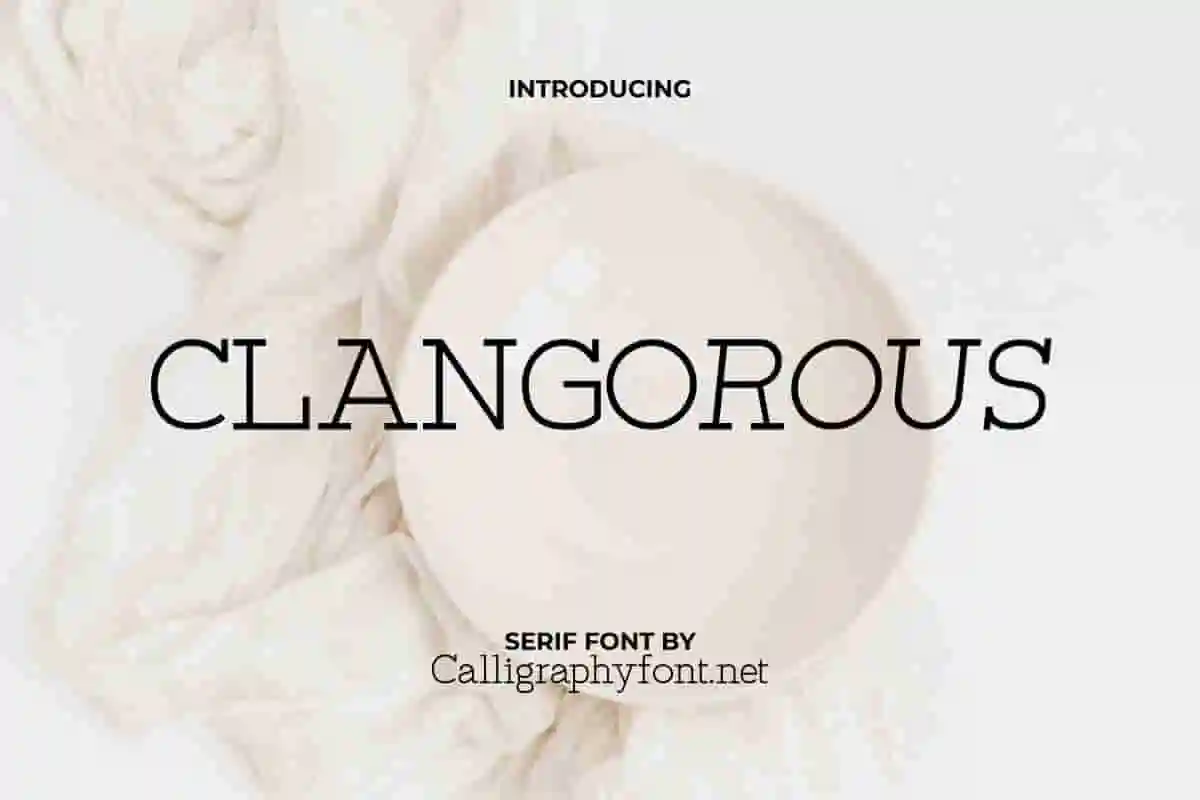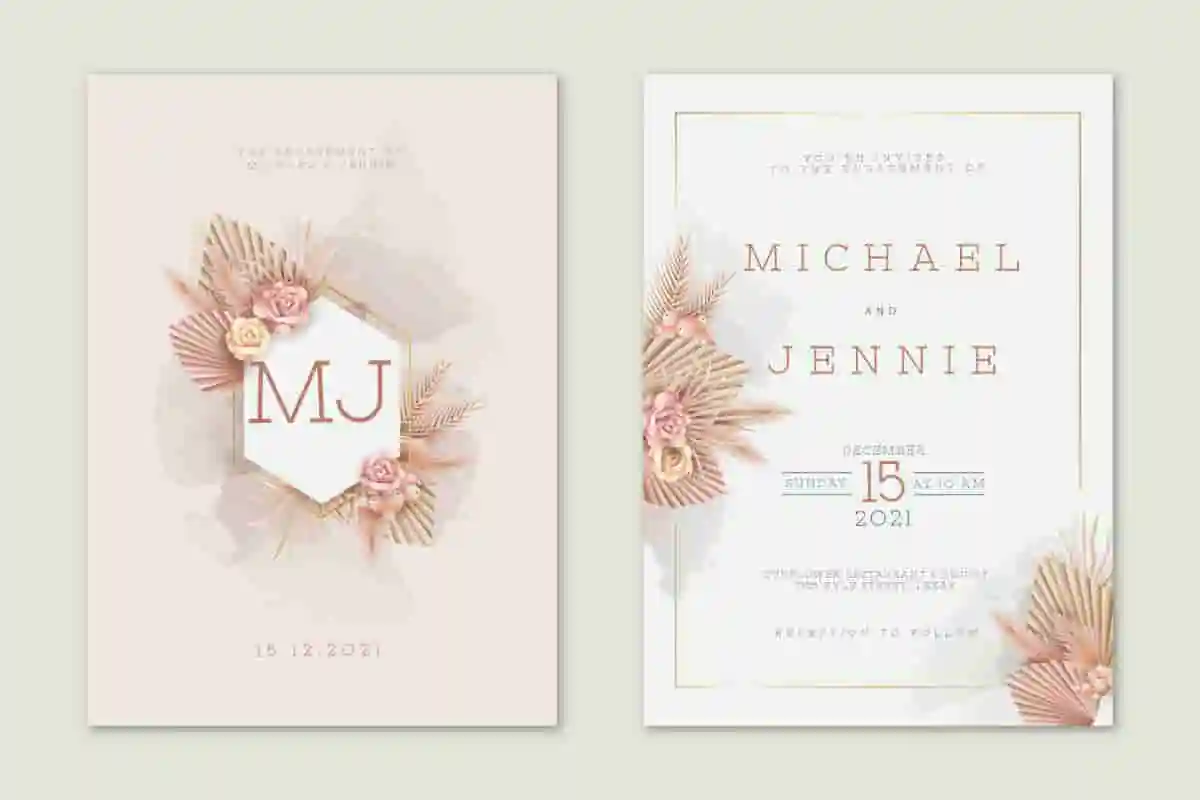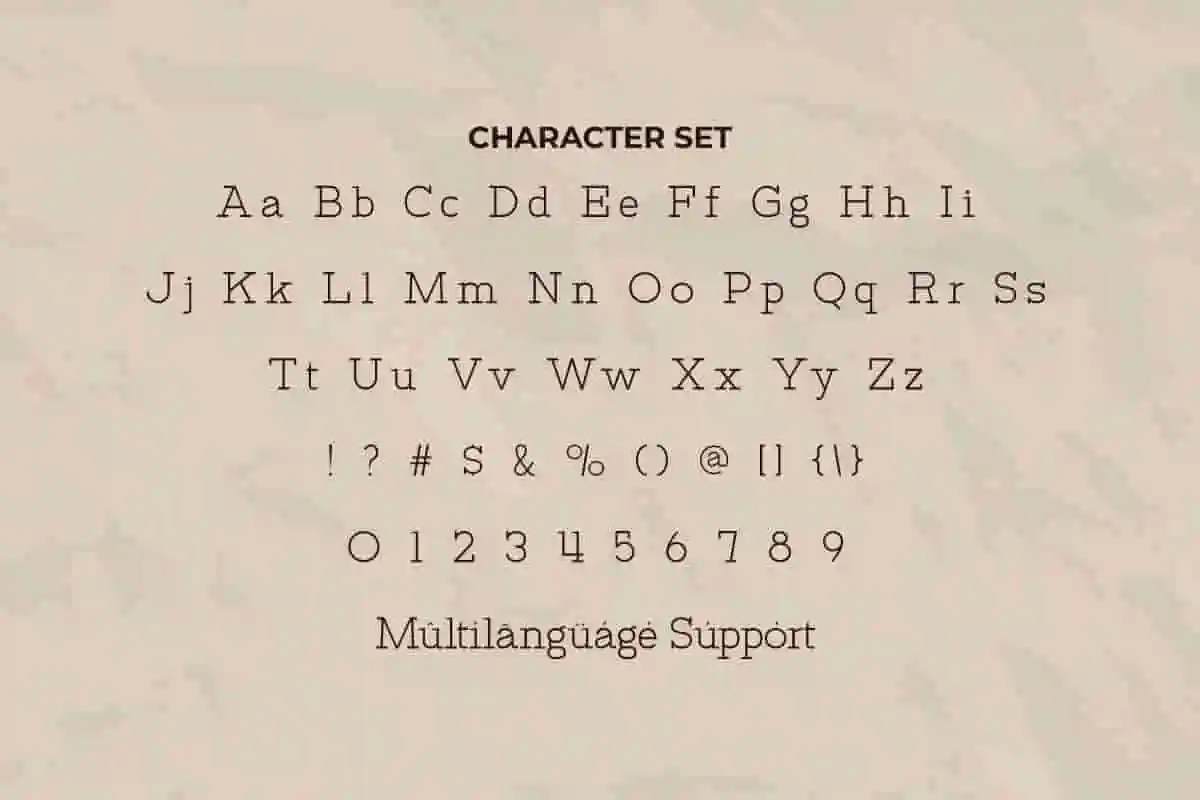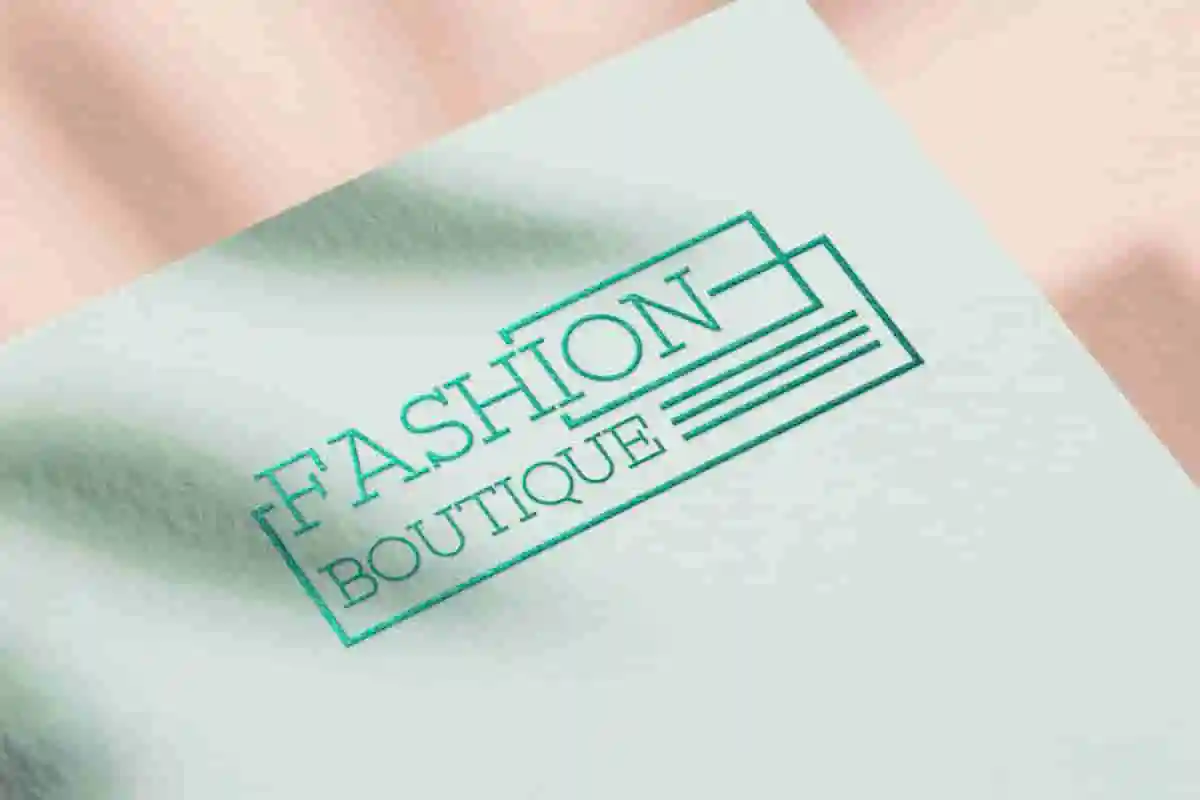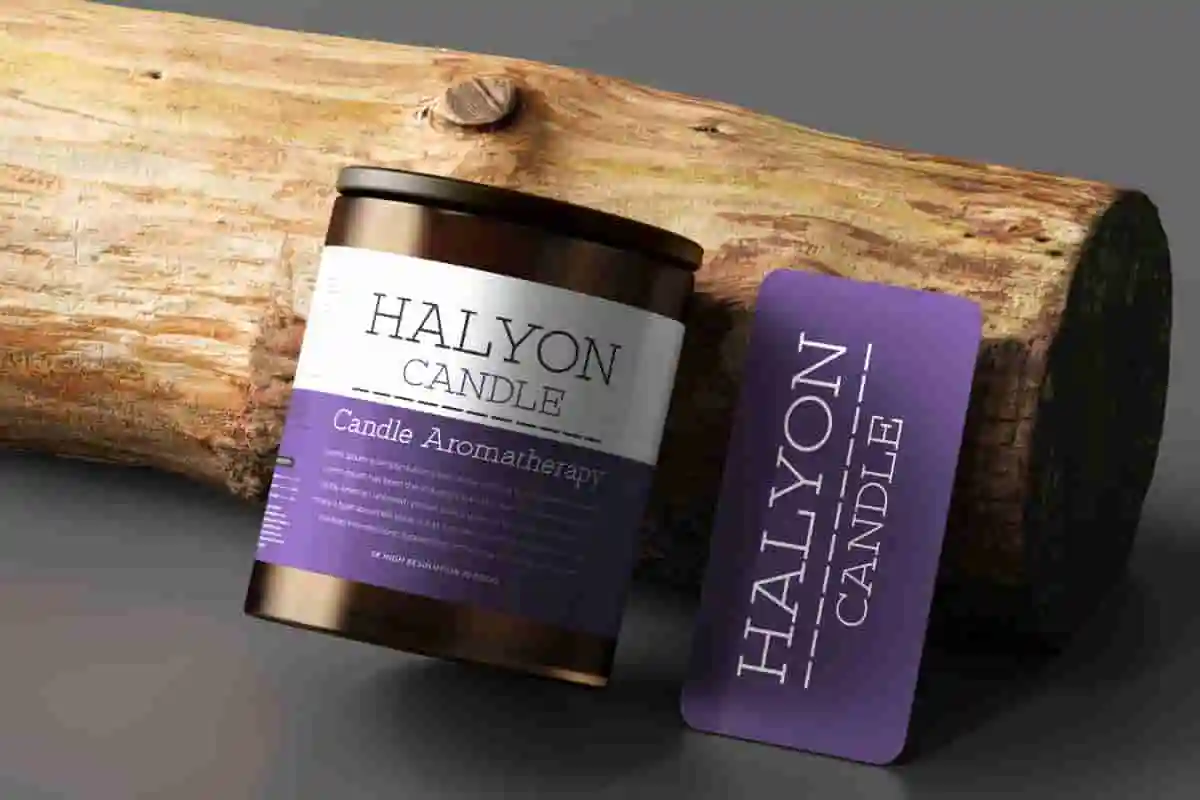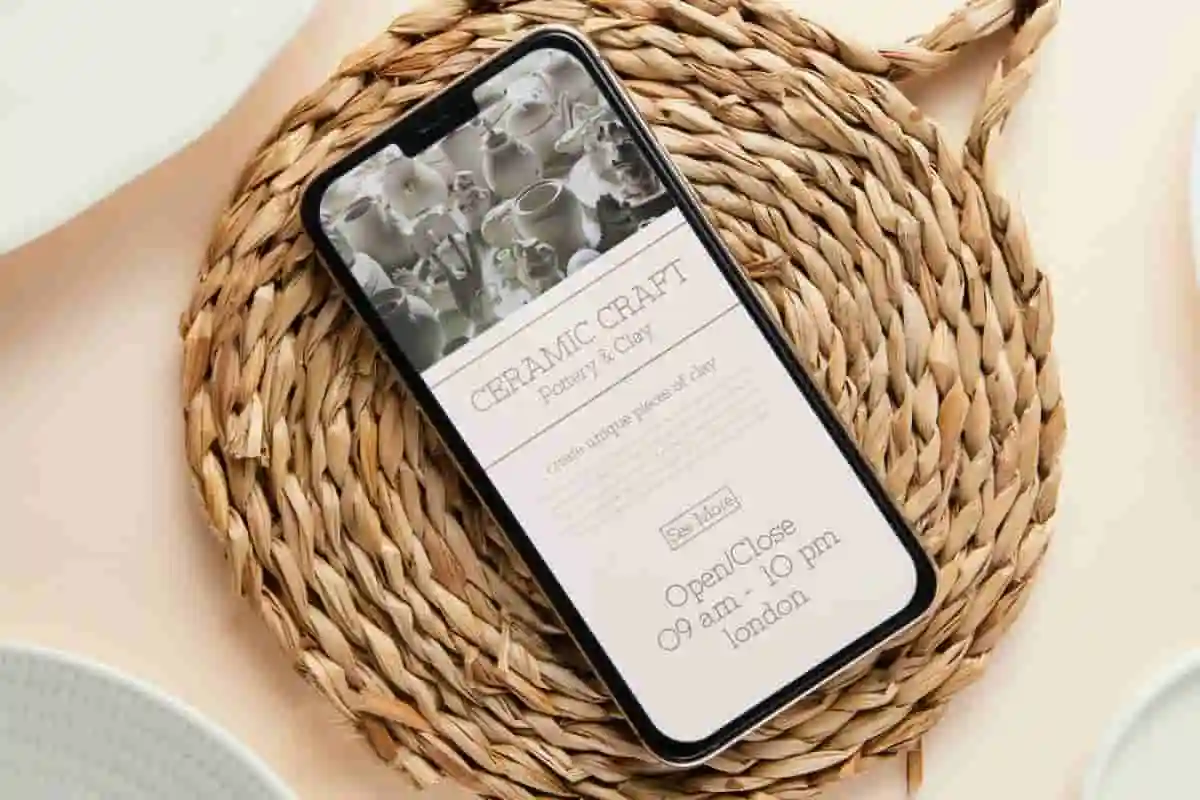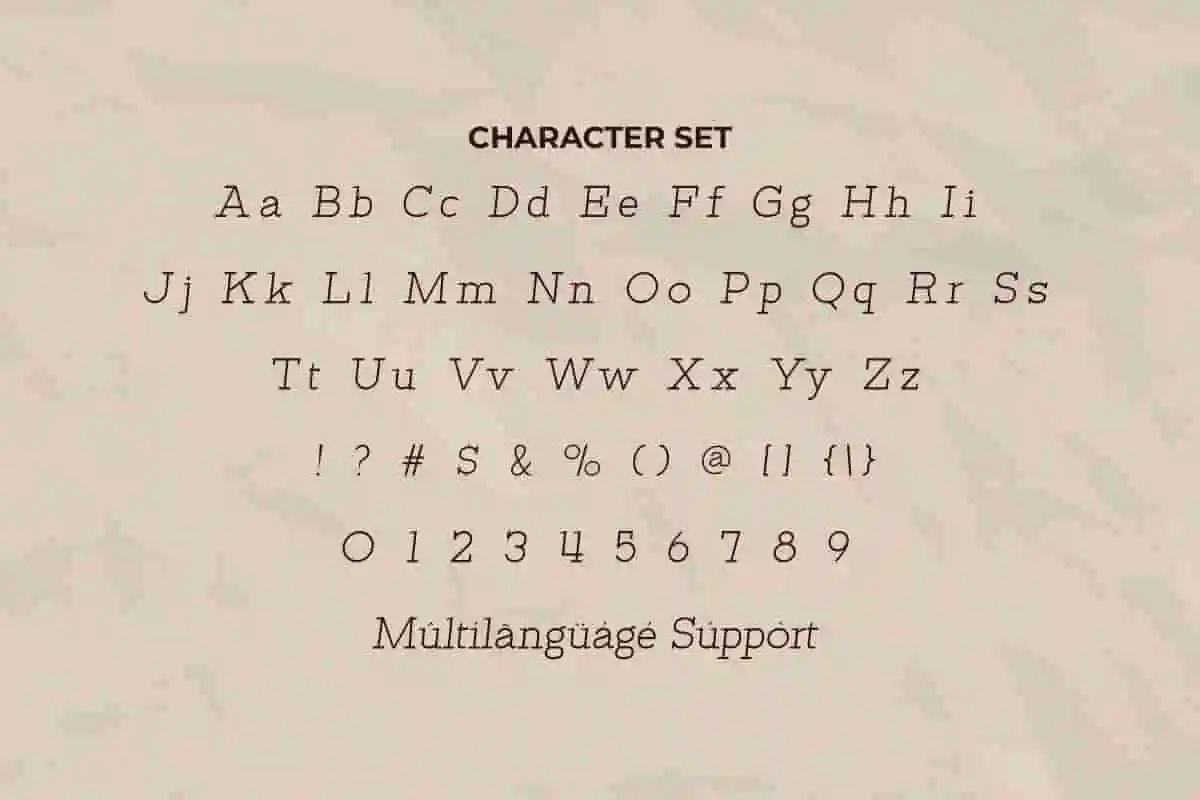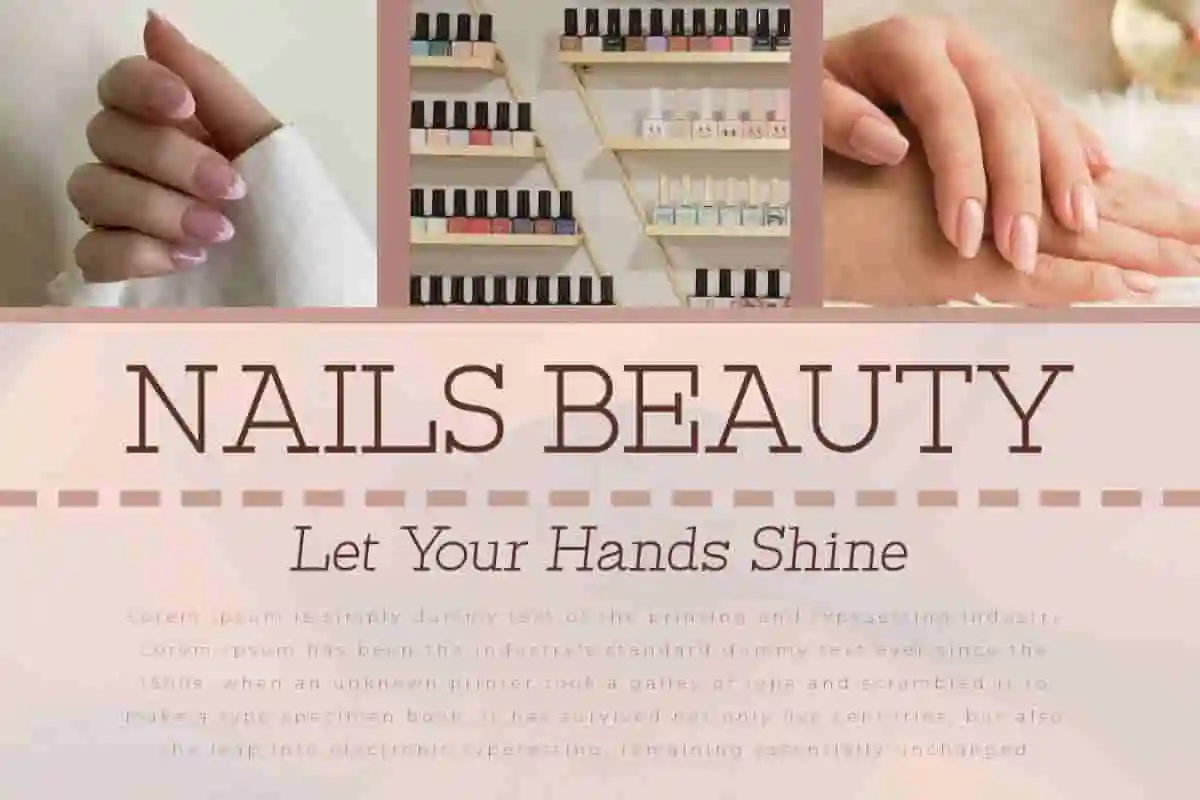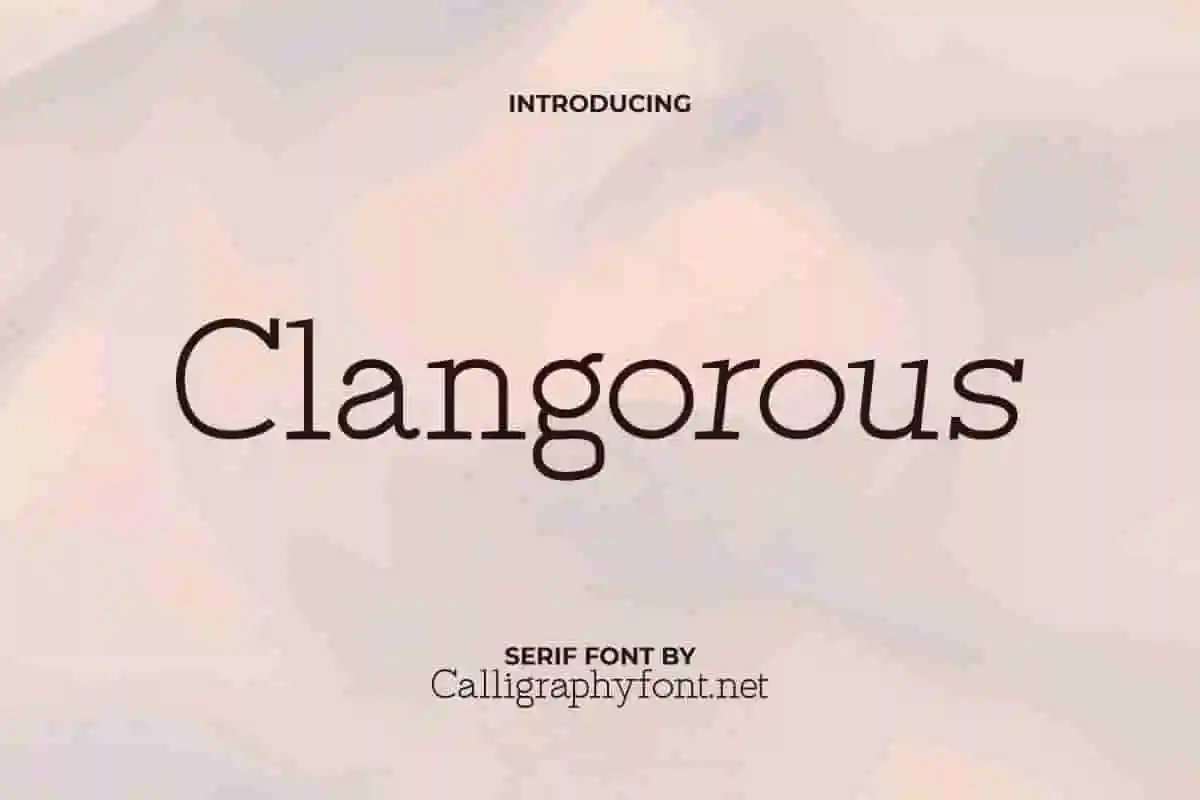
Clangorous Sans Serif Font
Clangorous Font is a casual serif inspired by the typewriter style with a fashionable touch, it can be used for boutique brand, candle label, magazine catalog, mockup design, price tag, spa and salon, wedding invitation etc.
Clangorous Font is a casual sans serif font that comes in with two styles: Regular and Italic exclusively created by CalligraphyFonts. This font is suitable for any industry such as : architect, boutique, cosmetic, fashion, homeware, publishing, spa and salon, wedding organizer, writer, and anything that needs a stylish serif look.
Are you looking for a typeface that combines boldness, clarity, and versatility? Clangorous Sans Serif Font is the perfect choice for designers who want to make a strong statement in their projects. With its clean lines, balanced spacing, and modern aesthetic, this sans serif font is ideal for branding, advertising, digital media, and professional presentations.
The unique design of Clangorous Sans Serif Font makes it stand out without sacrificing readability. Whether you are designing logos, posters, packaging, or social media graphics, this font adds confidence and sophistication to your work. Its bold strokes deliver impact, while its smooth shapes keep your design approachable and modern.
Clangorous Sans Serif Font will be perfect for any creative projects, such as: billboard, brand logo, headline, invitation, label, magazine catalog, packaging design, stationery, website, and good for your secondary text font with script. This font has a perfect appearance and makes it easy for readers.
Clangorous Sans Serif Font comes with a full set of Uppercase and Lowercase Basic Characters, Number, a large range of Punctuation and Symbol, and also supports multilingual characters. Ready to use both on Windows machine or Mac with simple installations. It’s tested to work well in the Adobe Apps (Illustrator, Adobe InDesign, Adobe Photoshop) CorelDraw, and others. PUA Encode Characters means you can access all the glyphs and other characters easily – Fully accessible without additional design software.